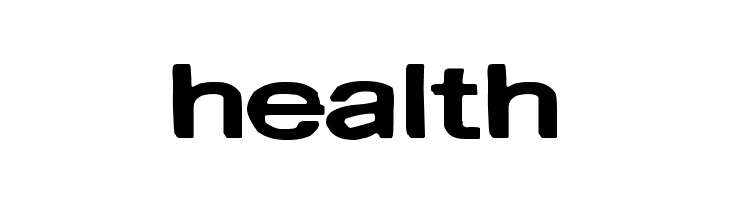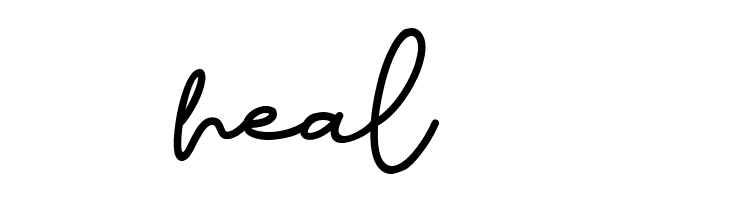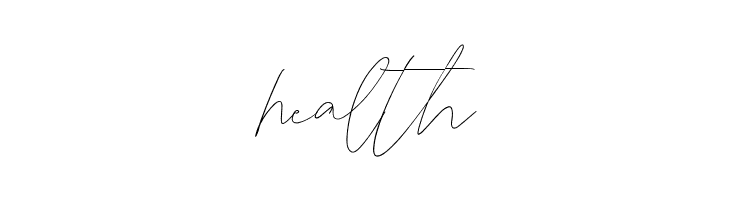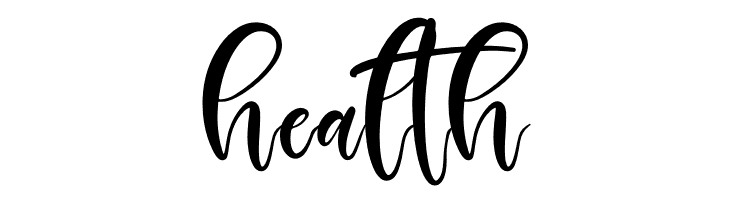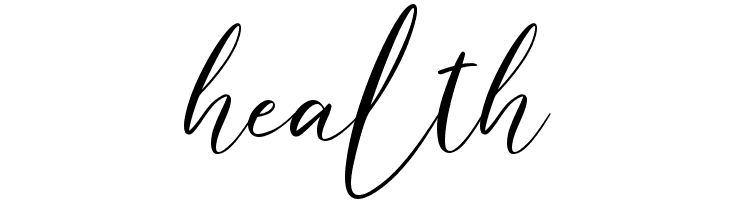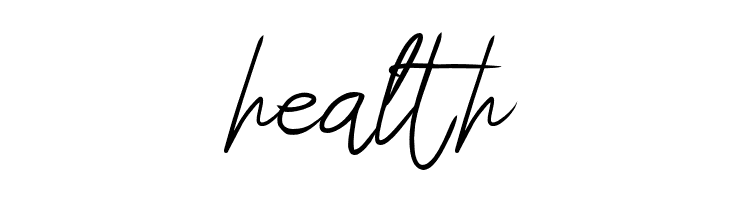
• Beatrix
A lively, cursive script font with fluid, interconnected letters.
• Beauty And The Best Bold
A bold, playful script font with fluid, interconnected characters.
• Beauty Boutique
A stylish and elegant handwritten font with fluid, connected letterforms.
• BeautyFlawless
A cursive, handwritten font with elegant, flowing strokes.
• Bedley
A fluid, cursive font with a natural, handwritten style.
• Behind the surprise
A bold, playful font with rounded edges and a modern, casual style.
• Belastine - Personal Use
A sophisticated cursive font with elegant, flowing strokes and dramatic contrasts.
• Bellanie
A playful and elegant script font with flowing, interconnected letters.
• Bellmont
A bold, vintage-inspired font with strong, thick strokes and a commanding presence.
• Belmondela
A dynamic and expressive handwritten font with fluid, flowing letterforms.